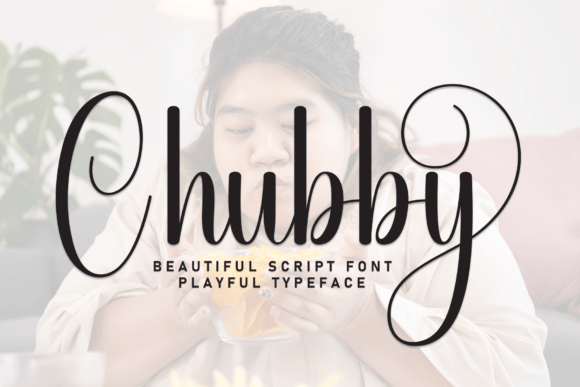
A Font that Speaks to the Heart
As a designer, there’s nothing quite like the thrill of creating something that captures the essence of a special moment. For me, it’s the wedding invitation design that stands out – a beautifully crafted piece of art that sets the tone for a lifelong journey. And that’s exactly where the Chubby Font comes in – a charming, handwritten display font that exudes warmth and personality.
Perfect for those looking to add a touch of whimsy to their designs, Chubby Font is an excellent choice for crafting elegant wedding invitations, heartfelt cards, or any design that requires a sprinkle of joy. With its adorable and effervescent style, this script personifies a fun and friendly vibe that’s sure to leave a lasting impression.
As a valuable addition to any designer’s toolkit, Chubby Font offers a unique opportunity to bring a smile to the faces of your clients and their loved ones.
Key Features of Chubby Font
- Unique Characteristics: Chubby Font features a distinctive, rounded design with thick lines and a playful feel, making it ideal for use in children’s books, educational materials, and other applications where a friendly, approachable tone is desired.
Chubby Font Review
When I first laid eyes on the Chubby Font, I knew it was something special ✨. The font’s playful, rounded design immediately caught my attention, and I couldn’t wait to see how it would work in a design project. And, for the most part, it did not disappoint.
Here are some of the things that work well with the Chubby Font:
- Unique and eye-catching design ✨ – The Chubby Font’s rounded shapes and playful feel make it perfect for adding a touch of whimsy to a design.
- High legibility ✨ – Despite its unconventional design, the Chubby Font is surprisingly easy to read, even at smaller font sizes.
- Wide range of uses ✨ – From headings and titles to body text and quotes, the Chubby Font is versatile and can be used in a variety of contexts.
- May not be suitable for formal or professional projects ⚠️ – The Chubby Font’s playful design may not be suitable for formal or professional projects where a more conservative or traditional font is preferred.
- Can be difficult to pair with other fonts ⚠️ – The Chubby Font’s unique design may make it challenging to pair with other fonts, so some experimentation may be required to find a harmonious combination.
Overall, I would say that the Chubby Font is a fun and playful addition to any design project. While it may not be suitable for every project, it’s a great choice for anyone looking to add a touch of whimsy and personality to their design.
Chubby Font is perfect for creating playful and eye-catching designs, such as:
- Children’s products and packaging
- Summer and outdoor-themed designs
Remember to experiment with different font sizes, styles, and spacing to get the most out of Chubby Font.